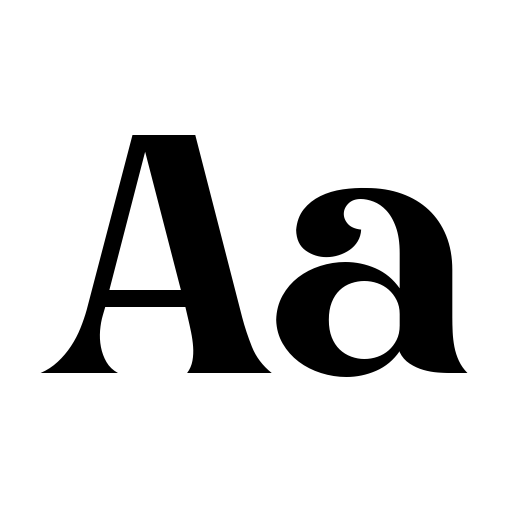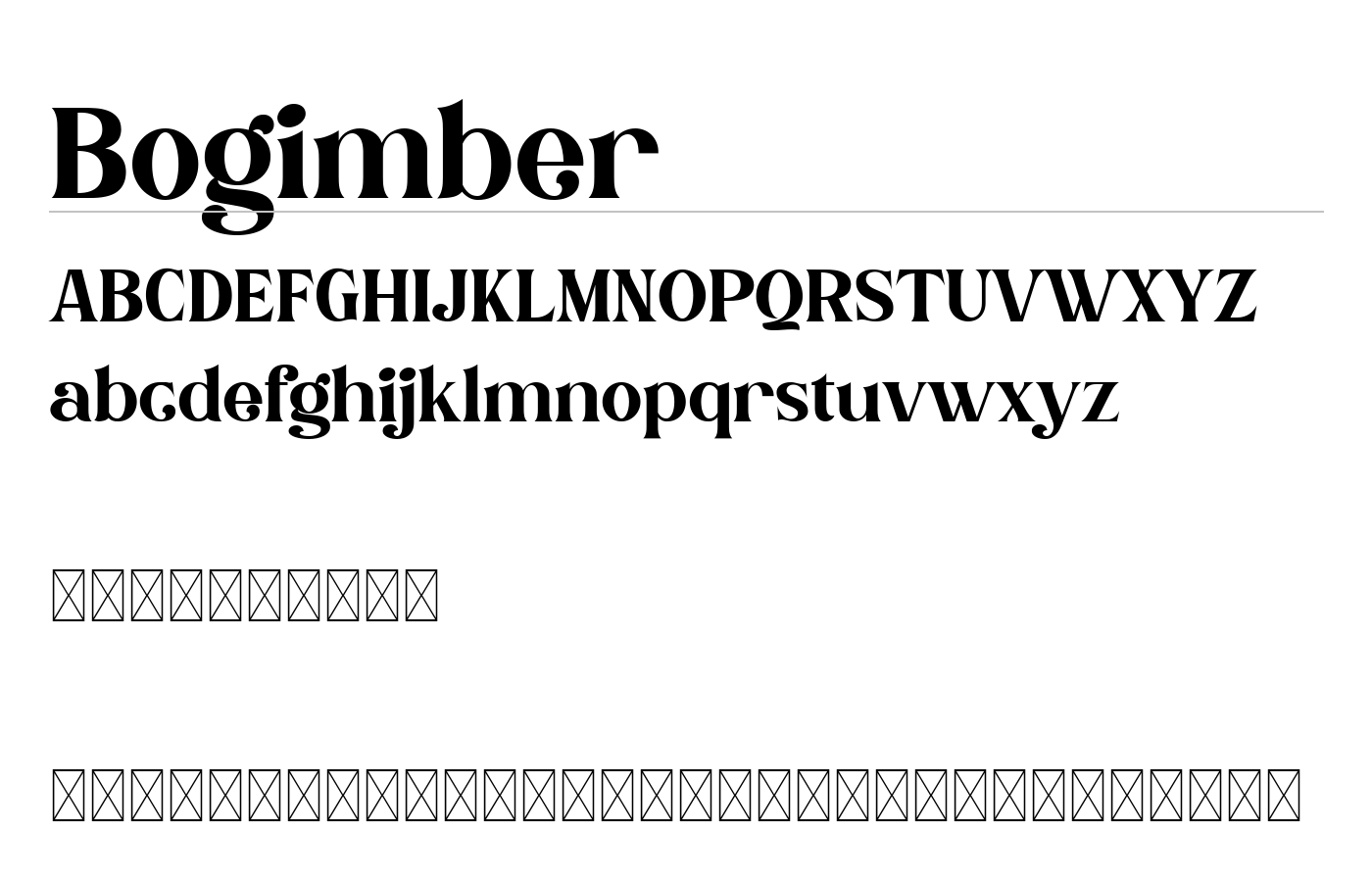
Bogimber is a bold serif font featuring strong contrast between thick and thin strokes, with sharp, bracketed serifs that lend it a classic yet striking presence. Its balanced proportions and refined details make it ideal for luxury branding, editorial headlines, and sophisticated packaging where an elegant, authoritative tone is desired. This font works best in displays and titles, capturing attention with its confident and timeless style.
Bogimber Font
About Bogimber Font